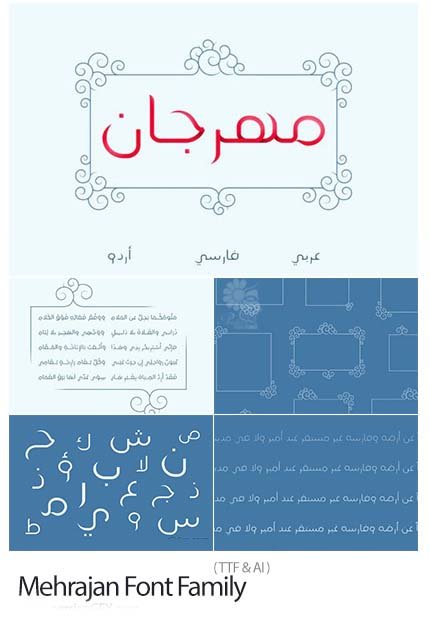
Mehrajan FontFamily
Mehrajan is a Regular type font that can be used on any device such as PC, Mac, Linux, iOS and Android. This font has 5 styles available ( Mehrajan Thin Mehrajan Extra Light Mehrajan Regular Mehrajan Bold).
Mehrjan—a name suggesting warmth and affection—is a thoughtfully crafted typeface that brings together three major Islamic calligraphic traditions in a design that radiates elegance and cultural authenticity. With its refined letterforms and comprehensive language support, this font allows you to create sophisticated projects that flow seamlessly across Persian, Arabic, and Urdu scripts.
Design Characteristics:
• Warm, elegant Persian, Arabic, and Urdu letterforms
• Balanced proportions for excellent readability
• Sophisticated design with cultural authenticity
• Refined character suitable for formal applications
• Distinctive yet approachable aesthetic
Persian (Farsi) Script:
• Complete Persian character set
• Full support for Persian-specific characters (گ، چ، پ، ژ)
• Correct representation of Persian numerals
• Proper character connections and positioning
• Elegant styling across all letters
Arabic Script:
• Coordinated Arabic design matching Persian style
• Complete Arabic character set
• Full support for Arabic diacritics and marks
• Harmonious weight and proportion
Urdu Script:
• Proper Urdu character set including specific letters
• Support for Urdu numerals and punctuation
• Correct representation with regional authenticity
• Seamless integration with Persian and Arabic
• Three Scripts, One Design: Consistent visual identity across Persian, Arabic, and Urdu
• Warm Character: Elegant, approachable letterforms
• Comprehensive Support: All characters for all three languages
Key Features of Mehrjan Font:
• Complete support for Persian (Farsi), Arabic, and Urdu scripts
• Warm, elegant design with refined character
• Full character sets for each script